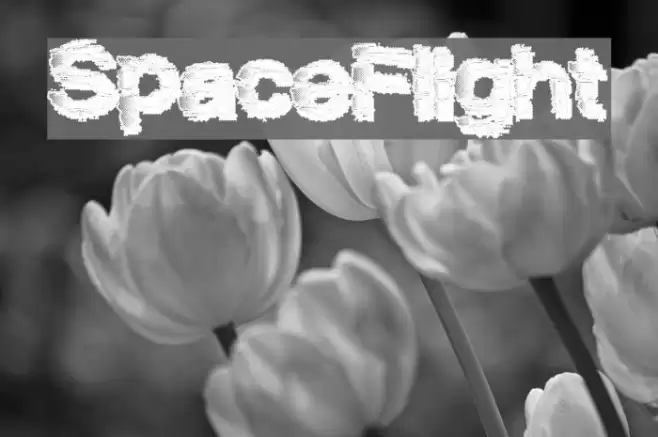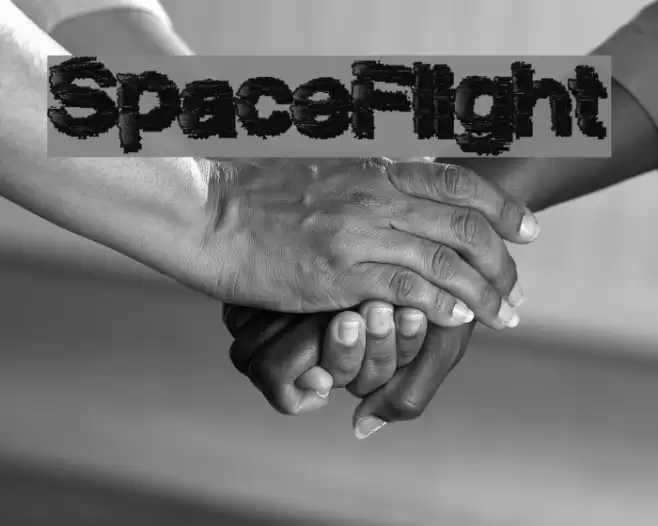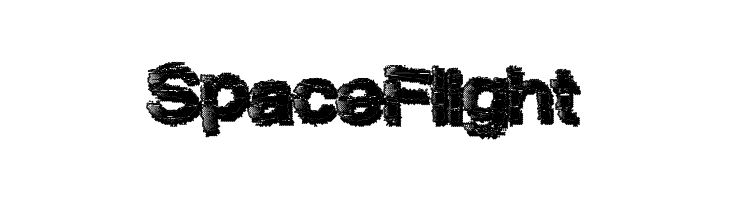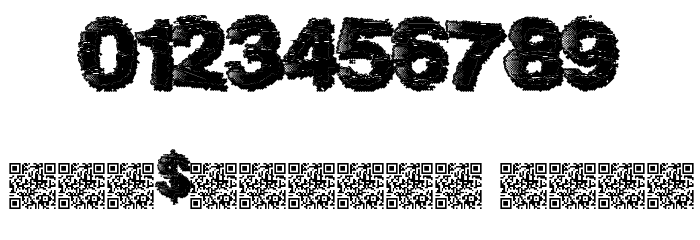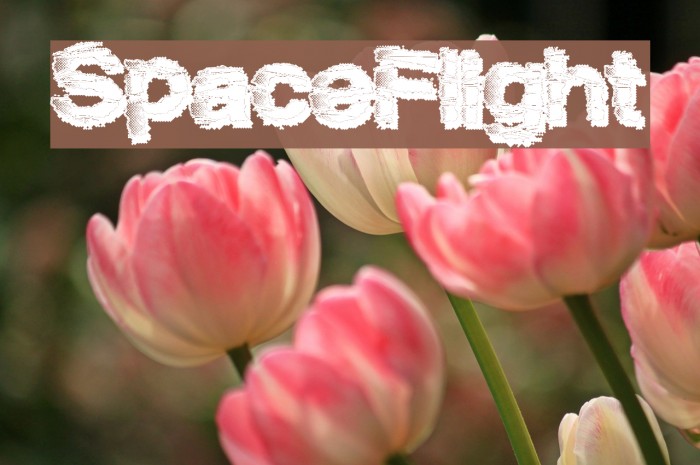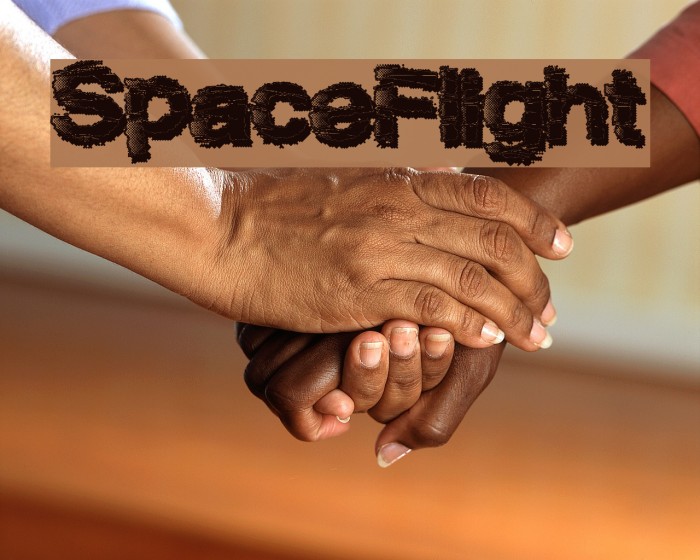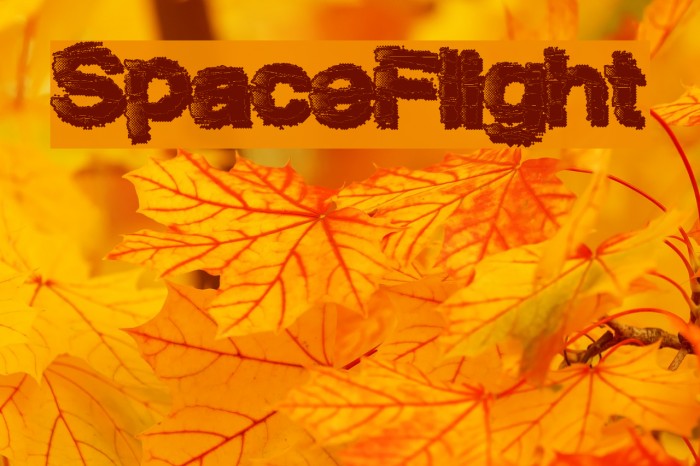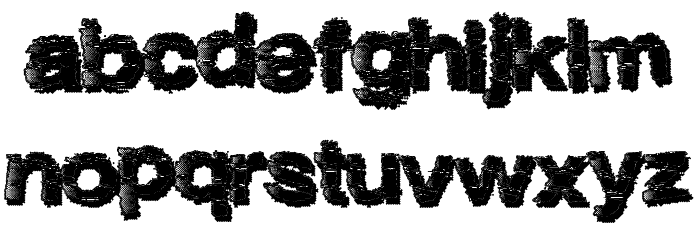
SpaceFlight Font
SpaceFlight Description
This font features a bold and textured appearance, reminiscent of chalk or crayon strokes. The characters are robust and have a slightly distressed look, giving them a dynamic and energetic feel. The uppercase and lowercase letters maintain a consistent style, with rounded edges and a uniform thickness that adds to the overall cohesion of the design. The numbers and special characters follow the same aesthetic, ensuring a harmonious look across all elements. This font's unique texture makes it stand out, adding a playful yet edgy vibe to any project.
A bold, textured font with a chalk-like appearance and dynamic style from Fancy fonts.
- Proposed Projects: Ideal for creative projects such as posters, children's book covers, event flyers, or any design that requires a playful and energetic touch.